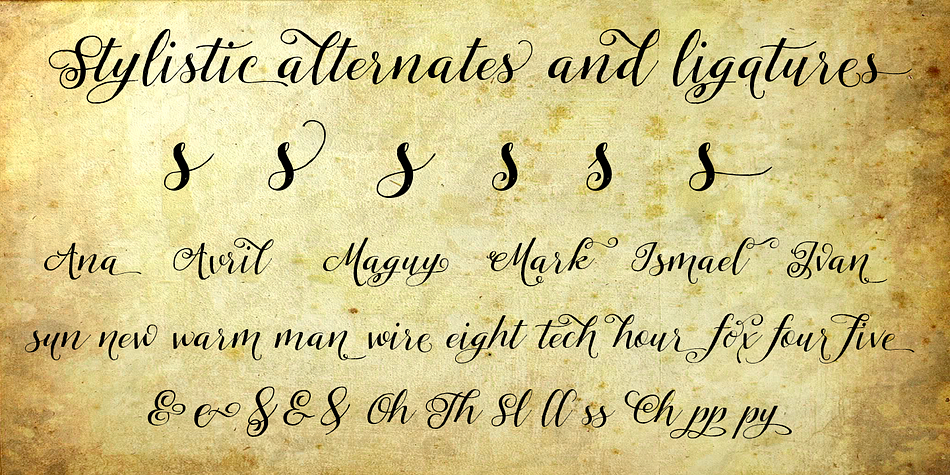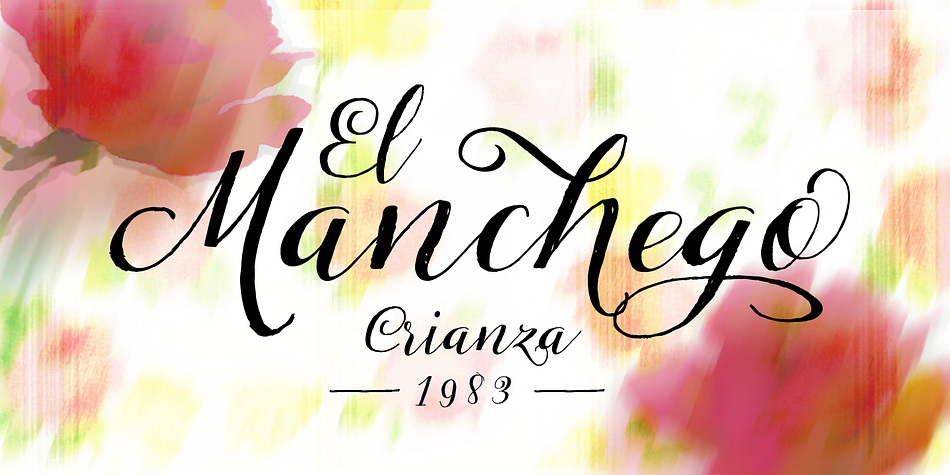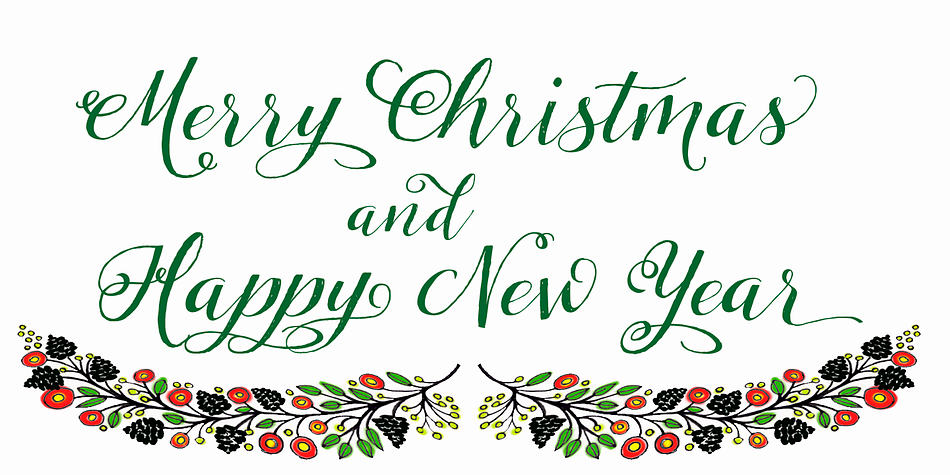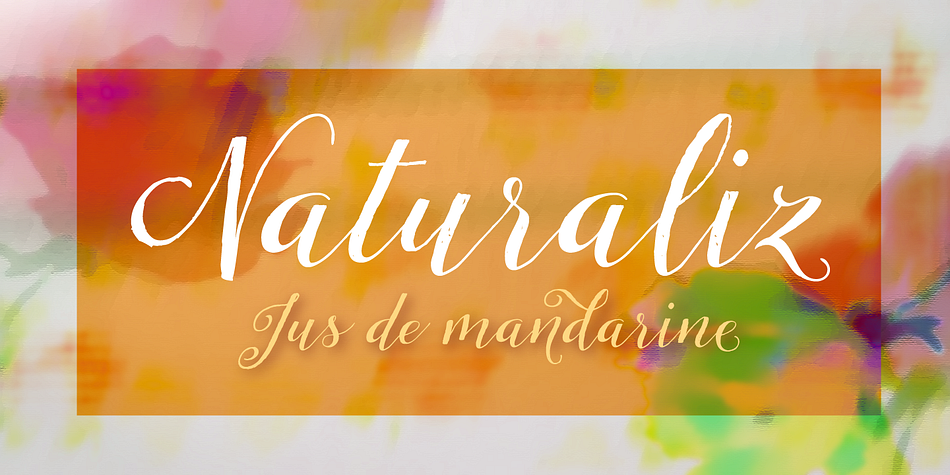
Tansy is a script and modern calligraphy font published by Eurotypo.
Tansy is an organic, modern and casual calligraphy font, made by hand. I’ve designed “Tansy” carefully with the intention to preserve in its glyphs the original textured appearance for a more personalized effect even more authentic.
Tansy font has OpenType features such as Ligatures, Contextual alternates, swashes, stylistic sets and stylistic alternates that allows you to mix and match pairs of letters to fit your design. This will help your creativity and make it easier to make the impressive and elegant typographic work.
This font is a perfect choice for greeting cards, posters, labels, t-shirt design, logos, and more. Tansy was made to make your project more beautiful and attractive! Have fun with it!